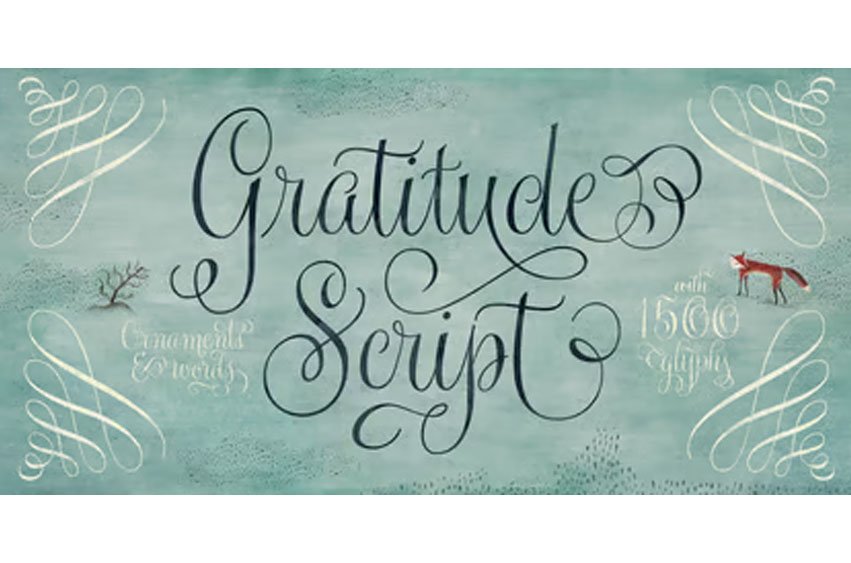
Gratitude Script Font The quality or feeling of being grateful or thankful. An appreciation for the world around us. Gratitude for being a part of it all. No matter what’s happening in our lives, there’s always something to be grateful for. When we have an appreciation for all we have, life gives us more to feel grateful for. It’s a naturally occurring cycle. Some of the most profoundly grateful times in our lives can be felt when we find ourselves surrounded by beauty: in art, nature, music, special places, the seasons, family, loving relationships, a cozy home, meaningful work; in doing what brings us joy, comfort, and feelings of deep love and satisfaction.
There is beauty everywhere, and creating beauty is an artist’s mission. We all have the ability to create and experience beauty. In this high-tech, fast paced world of strict, unbending rules, we give you Gratitude Script: A celebratory font that’s deeply rooted in tradition letterforms but with a modern, updated twist; a casual, whimsical, fun look that is also elegant and versatile! Partnering with Ale Paul is seasoned wedding calligrapher Kathy Milici, who is well known for her passionate writing style and highly ornamental pen flourishing.
With its signature hand-written look, flowing lines, graceful curves and flourishes, Gratitude Script’s space saving, vertical style is perfect for small printing areas as well as large format presentations. An extended variety of alternates makes it a perfect and versatile addition to your font repertoire.. These are tender times. Long hours and work pressures add to our stress. Time spent with family and friends is more valuable than ever before, as we try to balance it all. It’s important to mark time with special, happy events in our lives that we can all appreciate and enjoy. Let’s be grateful for it all! Hooray for Gratitude, and Gratitude Script! About the font: Gratitude Script is an OpenType font that contains more than 1400 glyphs icluding ligatures, alternates, endings , a wide range of latin languages and a set of ornaments and words specially designed to use in stationery for weddings, birthdays, etc. There is a smooth version of Gratitude Script too.